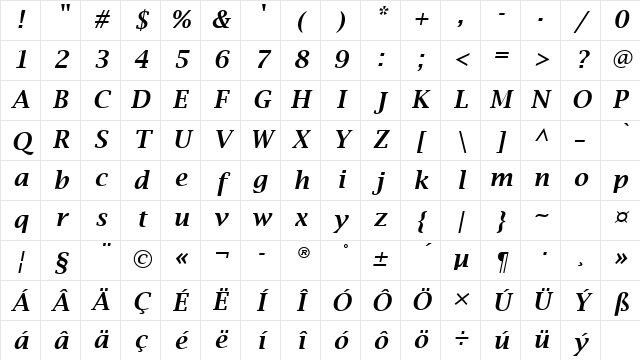
Lucida Bright CE Demibold Italic
Style: Demibold Italic
Design Context for Lucida Bright CE
Lucida Bright CE is a composed and adaptable typeface that performs quietly and consistently across a wide range of design contexts. The slanted form adds forward momentum and visual energy. Its bold stroke weight gives it real presence on the page.